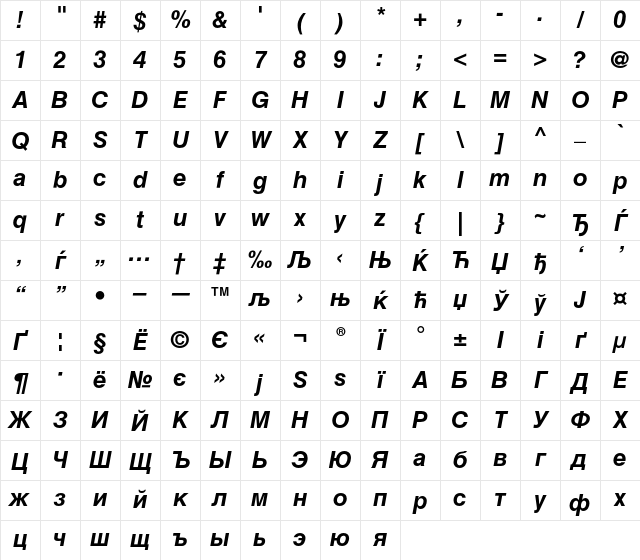
Helvetica Cyrillic Bold Inclined
Style: Bold Inclined
Complete Helvetica Cyrillic Bold Inclined glyph index. Displaying only characters natively supported by Helvetica Cyrillic Bold Inclined font.
Design Context for Helvetica Cyrillic
Helvetica Cyrillic is a composed and adaptable typeface that performs quietly and consistently across a wide range of design contexts. Its bold stroke weight gives it real presence on the page.